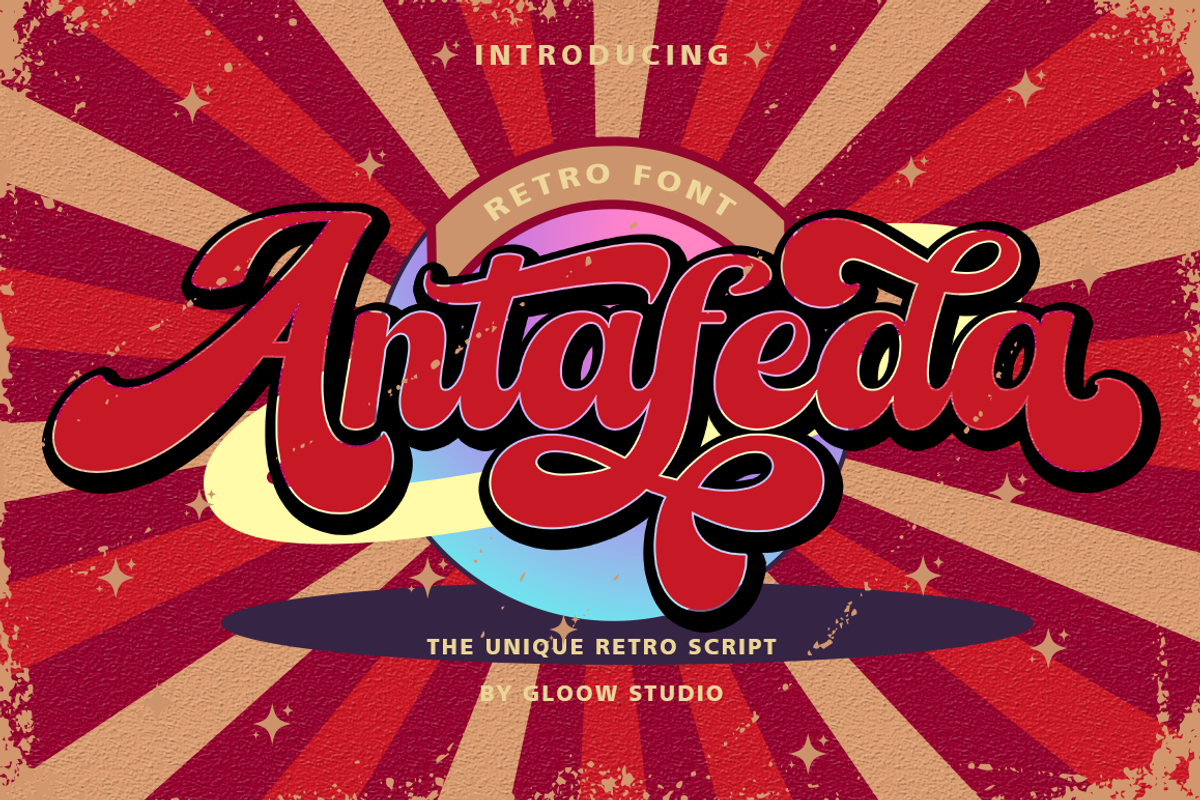
Antafeda Font Free Download is a modern, stylish typeface that blends smooth curves with clean, contemporary design. Perfect for branding, editorial layouts, social media graphics, logo design, and minimalist packaging, Antafeda adds a sleek and elegant vibe to any creative project.
Its well-balanced letterforms and subtle sophistication make it highly versatile—ideal for both headlines and body text. Whether you're designing for fashion, lifestyle, or tech, Antafeda delivers clarity, style, and professionalism in every character.